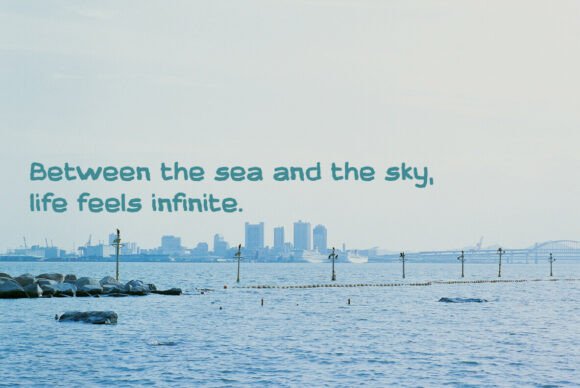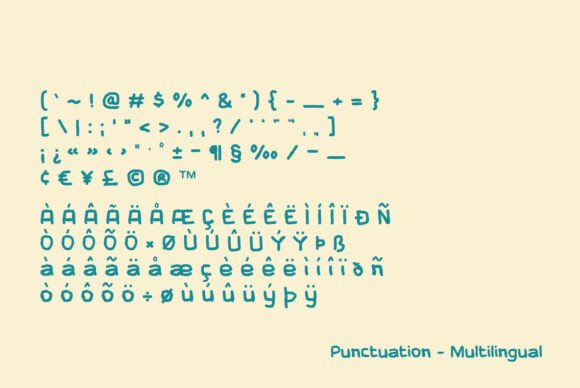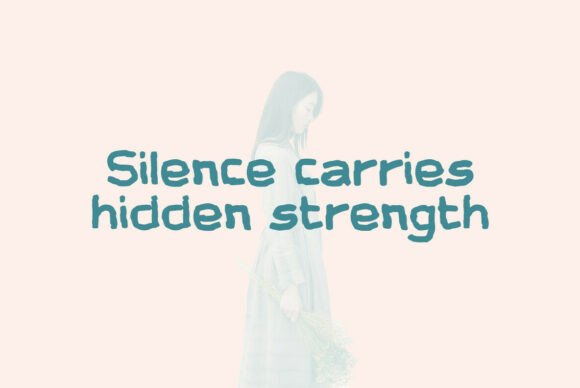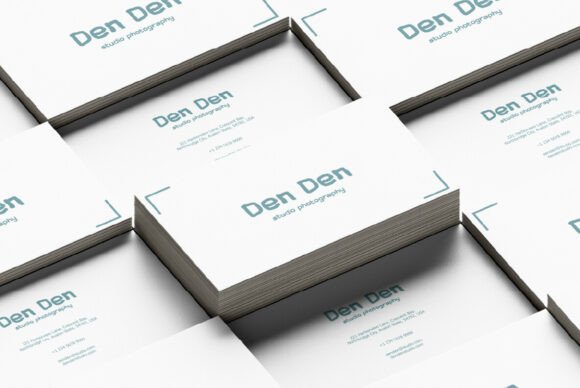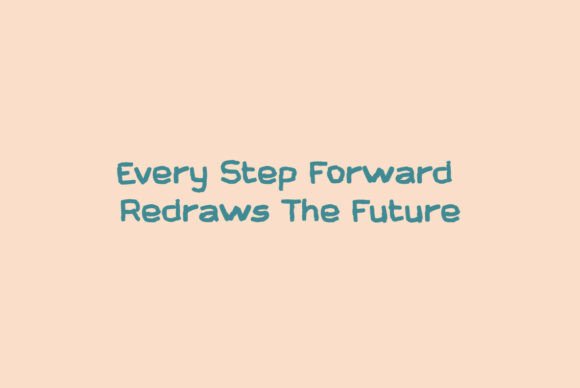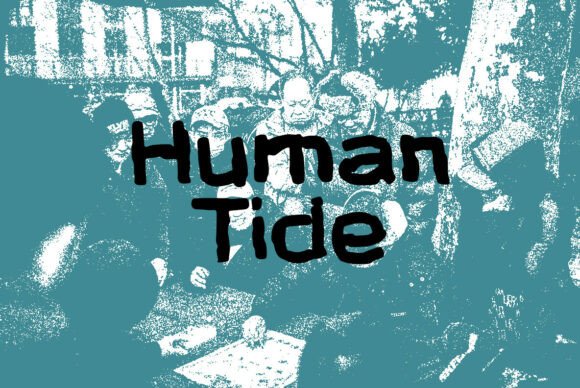
Introduction to Omiren Font Font
Fonts play a crucial role in design, and the Omiren Font font is a typeface that brings both character and versatility to any project. Whether you’re working on a branding project, a website, or a print design, the Omiren Font font offers a unique style that can elevate your work.
Omiren is an expressive handwritten typeface designed to bring a natural, human touch to your creative projects.
With its irregular strokes and playful flow, Omiren captures the essence of authentic handwritingβwarm, approachable, and full of personality Built with a Variable Control Point system, Omiren allows flexibility in shaping proportions, making it highly adaptable for different design needs without losing its handcrafted spirit.
Key Features of Omiren Font Font
Why Choose Omiren Font Font?
The Omiren Font font is more than just a typeface β it’s a design tool that helps you communicate your message with style and clarity. Its unique character set and versatile design make it suitable for a wide range of applications, from elegant invitations to bold headlines.
With its carefully crafted letterforms and balanced proportions, the Omiren Font font ensures readability and visual appeal across all mediums.
What makes Omiren Font font special?
The Omiren Font font stands out with its unique design, exceptional readability, and versatility across various design applications.